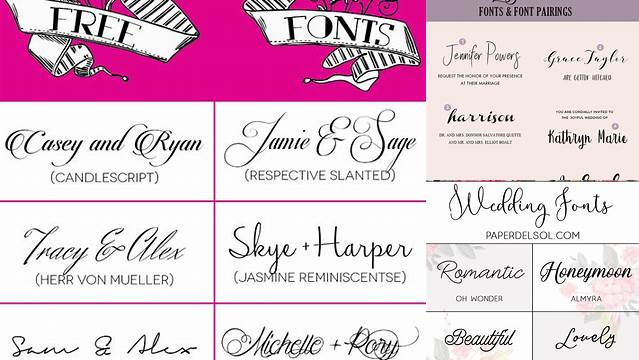
Free Fonts For Wedding Invitations: The Ultimate Guide
Choosing the right fonts for your wedding invitations is a crucial step in setting the tone and style for your big day. The typography you select can convey elegance, romance, playfulness, or any other vibe you desire. Luckily, there are tons of amazing fonts for wedding invitations free download available that can help you create stunning and personalized invites without breaking the bank. In this article, we'll explore some fantastic font options and provide tips on how to use them effectively to make your wedding invitations truly special. We will explore several font categories, discuss font pairing, and provide recommendations to help you in making perfect wedding invitations. Let's dive in and discover the perfect typography to make your wedding invitations unforgettable!
Understanding Font Categories
Before we jump into specific font recommendations, it's helpful to understand the main font categories. Knowing these categories will allow you to choose fonts that match your wedding style and create a cohesive design. Here are some common font categories you'll encounter when searching for fonts for wedding invitations free download:
Serif Fonts: Serif fonts are characterized by the small decorative strokes (serifs) at the end of each character. These fonts often evoke a sense of tradition, elegance, and formality. Think Times New Roman, Garamond, and Georgia. They're a classic choice for wedding invitations, especially for more formal or traditional weddings. The serifs add a touch of sophistication and make the text easy to read, making them ideal for the main body text or important details like names and dates. If you're aiming for a timeless and refined look, serif fonts are your go-to option.
Sans-Serif Fonts: Sans-serif fonts, as the name suggests, lack the serifs found in serif fonts. They have a cleaner, more modern appearance. Popular examples include Arial, Helvetica, and Open Sans. Sans-serif fonts are often associated with simplicity, minimalism, and contemporary style. They work wonderfully for modern or minimalist wedding themes. They are also excellent choices for headings or accent text, providing a clean contrast to serif fonts in the body.
Script Fonts: Script fonts mimic the flowing strokes of handwriting. They add a touch of romance and elegance to any design. Think of calligraphy-style fonts like Brush Script, Pacifico, and Great Vibes. These fonts are perfect for adding a personal and intimate touch to your wedding invitations. They are best used sparingly for elements like names, headings, or special announcements. Overusing script fonts can make your invitations hard to read, so balance is key. Script fonts are ideal for creating a romantic and whimsical feel.
Display Fonts: Display fonts are designed to be eye-catching and unique. They come in a wide variety of styles, from bold and modern to quirky and playful. These fonts are perfect for making a statement and adding personality to your invitations. However, they should be used sparingly and primarily for headings or key phrases. Display fonts can be a great way to reflect your unique style and wedding theme, but be careful not to overwhelm your design with too many decorative elements. They are excellent for creating focal points and adding visual interest.
Understanding these font categories will help you narrow down your options and choose fonts for wedding invitations free download that perfectly reflect your wedding style and personality. Each category offers a unique aesthetic, so consider your overall vision when making your selections.
Top Free Font Recommendations for Wedding Invitations
Now that we've covered font categories, let's explore some specific fonts for wedding invitations free download that are both beautiful and versatile. These fonts are available for free, making them a budget-friendly option for your wedding stationery. Here are some of our top picks, categorized for your convenience:
Serif Fonts:
Lora: Lora is a well-balanced serif font with roots in calligraphy. Its contemporary feel makes it highly readable, suitable for both body text and headings. Lora's elegant curves add a touch of sophistication, making it a perfect choice for classic wedding invitations. It’s particularly well-suited for couples who want a timeless yet modern look. Lora pairs beautifully with sans-serif fonts like Montserrat or Lato, providing a visually appealing contrast that enhances readability and design harmony. Its versatility makes it a staple in many designers’ font libraries.
Playfair Display: Playfair Display is an elegant and transitional serif typeface that exudes sophistication and class. Designed for headings and titles, it adds a touch of luxury to any design. Its high contrast and delicate serifs make it a standout choice for wedding invitations. Playfair Display is particularly effective when used for the names of the couple or key details of the event. To balance its ornate nature, consider pairing it with a simpler sans-serif font like Open Sans or a clean serif font like Merriweather. This combination ensures that your invitations have a balanced and refined appearance, perfect for formal weddings.
Merriweather: Merriweather is a highly readable serif font designed for screens, making it a great choice for digital invitations or online RSVPs. Its sturdy and slightly condensed letterforms give it a professional and polished look. Merriweather is also an excellent option for body text, ensuring that your invitation details are clear and easy to read. Its versatility allows it to be used in both formal and semi-formal wedding settings. Pair Merriweather with a script font like Allura or a sans-serif font like Roboto to create a balanced and visually appealing design. Its clarity and readability make it a reliable choice for any wedding invitation suite.
Choosing the right fonts for wedding invitations free download is essential for setting the tone and style of your wedding. By understanding font categories, exploring free font resources, and following font pairing tips, you can create stunning and personalized invitations without spending a fortune. Remember to prioritize readability, reflect your personal style, and have fun experimenting with different typography combinations. With a little creativity and attention to detail, you can create wedding invitations that your guests will cherish forever. So go ahead, explore the world of free fonts, and make your wedding invitations truly unforgettable!